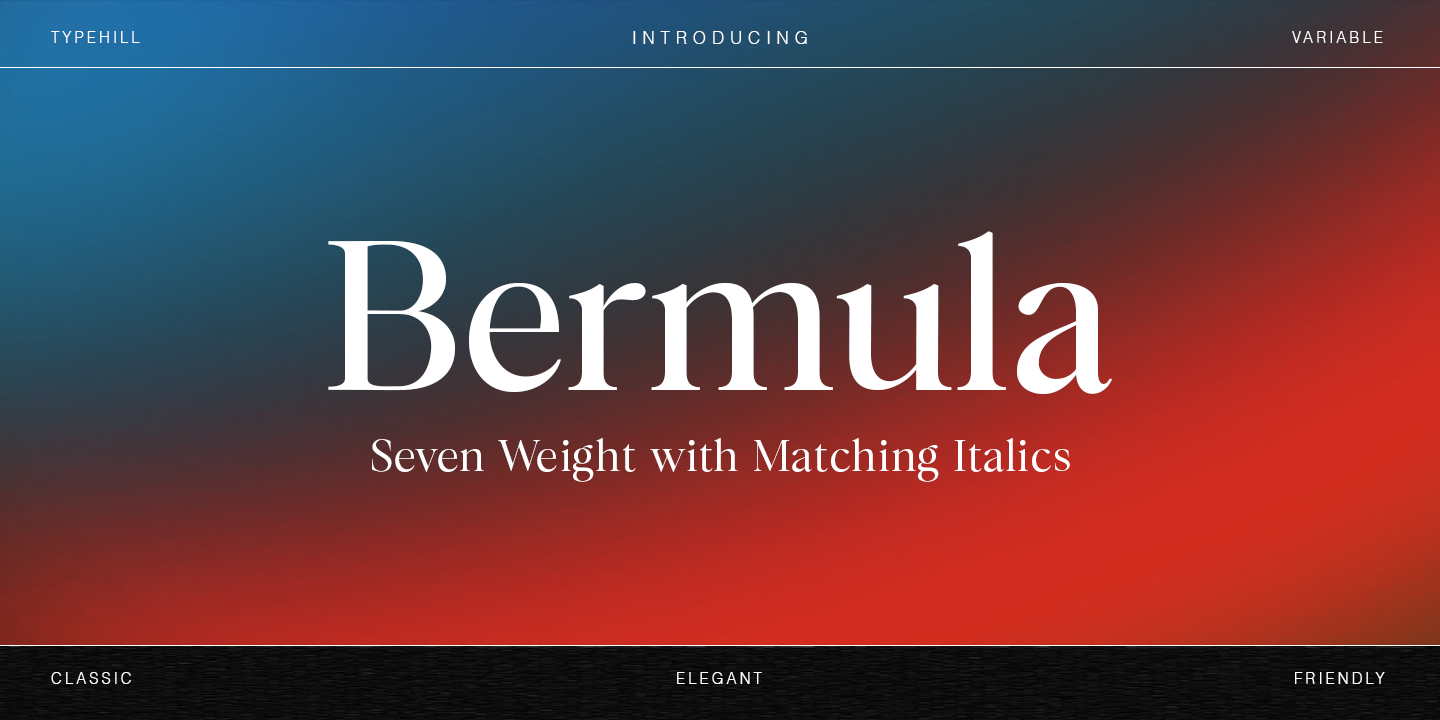
The Bermula Font is an excellent choice for designs that aim for a fresh, modern, and often semi-condensed or impactful aesthetic, perfect for strong headlines and distinctive branding. Imagine it boldly gracing the cover of a contemporary magazine, defining the visual identity for an innovative startup, or adding a sleek, confident edge to digital advertisements. It's also perfectly suited for dynamic event posters, impactful web banners, minimalist product packaging, and any project where you want to convey a sense of precision, efficiency, and a forward-thinking design. Its often crisp lines, balanced proportions, and clear forms make it ideal for conveying clarity and a refined, contemporary appeal.
What makes the Bermula Font so exciting is its remarkable blend of simplicity and distinctive character. It frequently features subtle design elements or unique cuts that give it a memorable personality without compromising legibility or versatility. This font has an intelligent and sophisticated presence that can instantly elevate your design, making it feel both modern and remarkably timeless. It’s designed to provide excellent readability in various applications, ensuring your message is not just seen, but effortlessly absorbed with a sense of refined style.
The Bermula Font family typically includes a range of weights, from a delicate light for subtle accents to a robust bold for impactful statements, often accompanied by matching italic versions. This comprehensive range provides designers with ample flexibility to create nuanced visual hierarchies and add dynamic contrast within their typography. With its broad character set, it supports multiple languages, further expanding its global applicability for various contemporary design projects. Discover the sophisticated clarity of Bermula Font Free Download for your next creative endeavor.